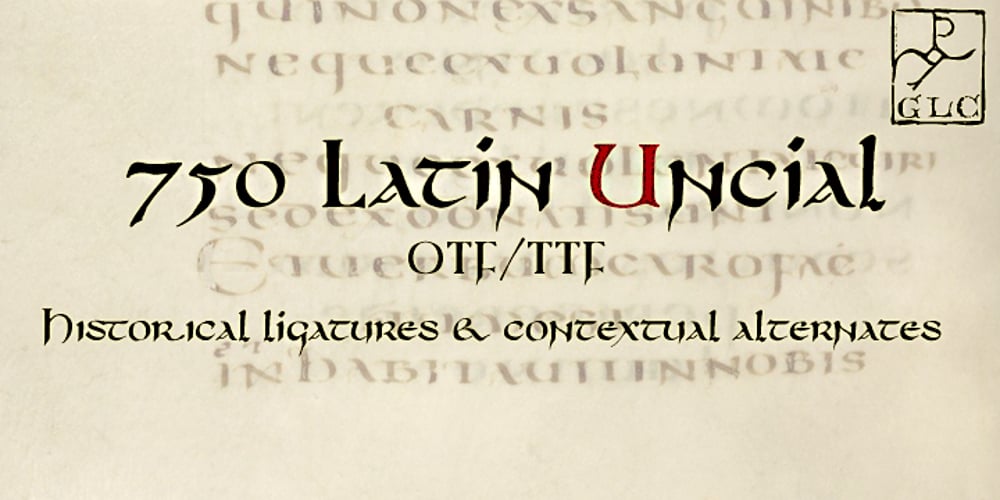
750 Latin Uncial Font Family was designed by Gilles Le Corre and published by GLC. 750 Latin Uncial contains 1 styles and family package options. This font was inspired by the Latin script used in European monasteries from circa the 5th to 8th centuries, before the Carolingian “Caroline” (look at our 825 Karolus). It was a regular script, rounded, written slowly, used mainly for specially meticulous books, with a few ligatures, legible, but only with lowercase. The capitals consisted of enlarged lower cases, but here, we have preferred to use two slightly different patterns. Our lower cases are a synthesis from a lot of variants (mainly from the “First Bible” of Charles The Bald), the upper cases were mainly inspired from a 700’s manuscript from the abbey of Fécamp (France). We have adapted the font for contemporary users, differentiating between U and V, I and J, which has no relevance for ancient Latin scribes, and naturally with Thorn, Oslash, Lslash, K, W… punctuation and the usual accented characters which did not exist at the time. It can be used with 799 Insular Title.